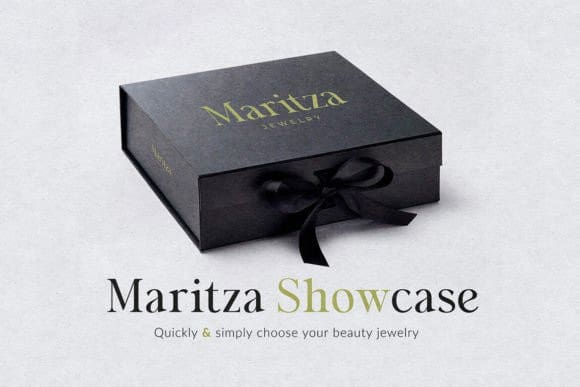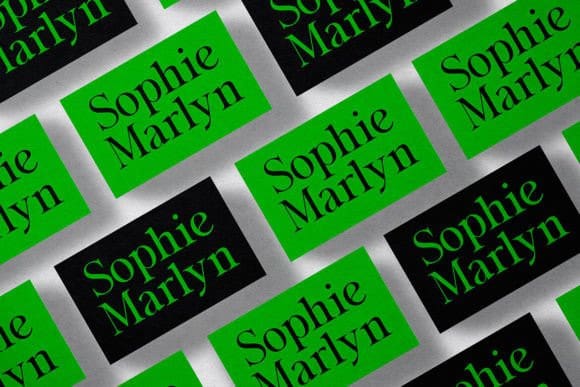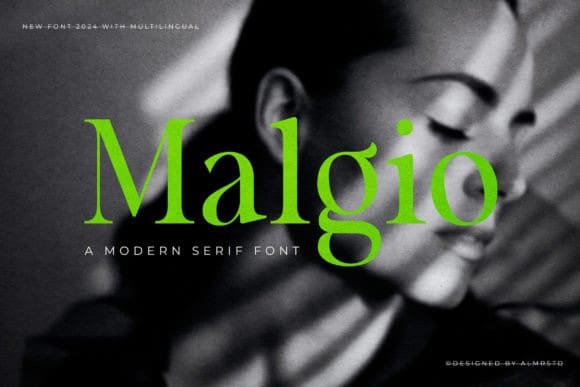
Malgio Font
Malgio Font, a modern serif font with an elegant style that is perfect for branding, logos, invitations, magazines, product packaging, and more. No matter the topic, this font will be an incredible asset to your fonts’ library, as it has the potential to elevate any creation.